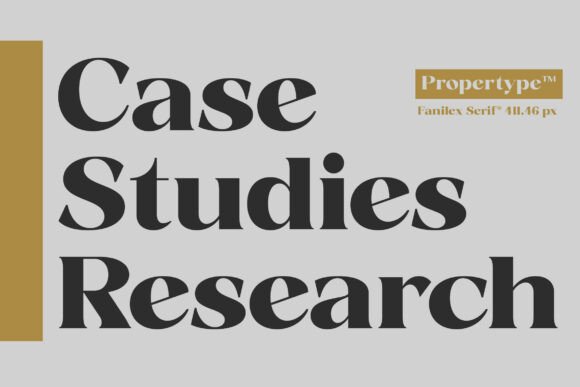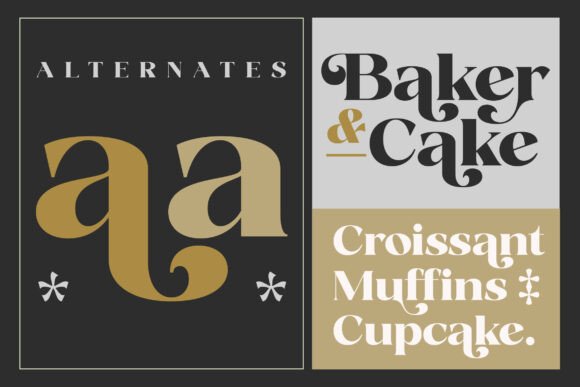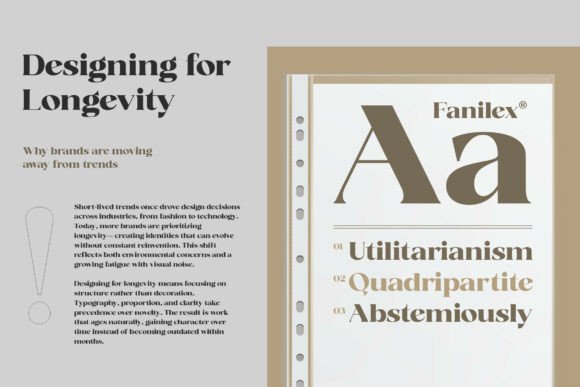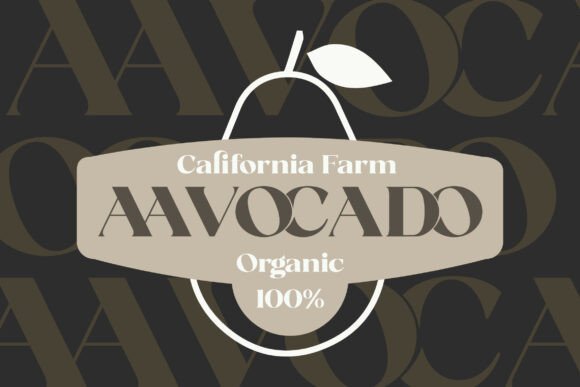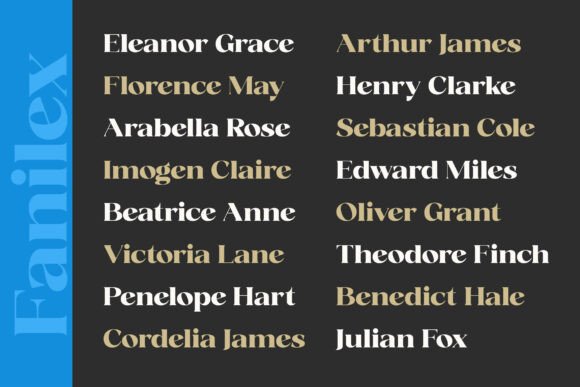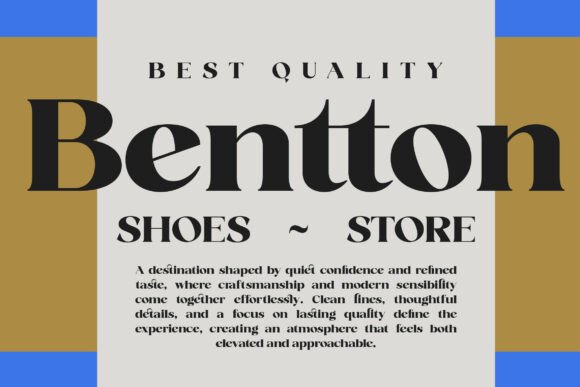
Introducing Fanilex Font: A Timeless Elegance for Modern Design
In the world of typography, few fonts manage to strike a balance between classic elegance and modern sophistication. Fanilex Font is one such exceptional typeface that seamlessly blends traditional charm with contemporary refinement. Designed to offer beauty, versatility, and creative freedom, Fanilex has become a go-to choice for designers and crafters looking to elevate their projects.
The Essence of Fanilex
Fanilex is a classic editorial serif typeface that embodies the timeless elegance of traditional typography, while incorporating a refined contemporary touch. Its design is centered around providing a sophisticated presence that can enhance any medium, whether print or digital. With its graceful serifs, enhanced contrast, and sophisticated curves, Fanilex is perfect for a wide range of applications, from editorial and magazine layouts to fashion and luxury brands, packaging, and visual identities.
Design Features and Versatility
One of the standout features of Fanilex is its versatility. The font offers numerous alternates and ligatures, providing limitless creative possibilities for designers. Whether you’re crafting dramatic headlines or perfectly composed body text, Fanilex gives you complete control over your typographic style. This level of flexibility makes it an ideal choice for various projects, including:
- Editorial and magazine layouts: Add a touch of sophistication to your publications with Fanilex’s elegant serifs and refined curves.
- Fashion and luxury brands: Elevate your brand’s visual identity with a font that exudes luxury and refinement.
- Packaging and visual identities: Create stunning packaging and visual identities that stand out with Fanilex’s unique charm.
- Typographic posters: Make a statement with dramatic headlines and beautifully composed body text.
- Premium promotional materials: Add a touch of sophistication to your promotional materials and make them truly unforgettable.
Why Choose Fanilex?
So, what sets Fanilex apart from other typefaces? Here are a few reasons why designers and crafters love working with Fanilex:
- Timeless elegance: Fanilex’s classic design ensures that your projects will remain stylish and relevant for years to come.
- Versatility: With numerous alternates and ligatures, Fanilex offers endless creative possibilities.
- Sophisticated presence: Fanilex brings a level of refinement and sophistication to any project, making it perfect for high-end brands and publications.
- Flexibility: Fanilex is suitable for a wide range of applications, from print to digital.
Tips for Using Fanilex
To get the most out of Fanilex, here are a few tips to keep in mind:
- Experiment with alternates and ligatures: Don’t be afraid to try out different alternates and ligatures to add some personality to your text.
- Play with contrast: Fanilex’s enhanced contrast makes it perfect for creating visually striking headlines and body text.
- Pair with complementary fonts: Fanilex pairs beautifully with other serif and sans-serif fonts, making it easy to create harmonious typographic combinations.
| Author | Propertype |
Fanilex Font is a true gem in the world of typography. Its timeless elegance, versatility, and sophisticated presence make it an ideal choice for designers and crafters looking to elevate their projects. Whether you’re working on editorial layouts, fashion brands, or premium promotional materials, Fanilex is sure to bring a level of refinement and sophistication that will leave a lasting impression.